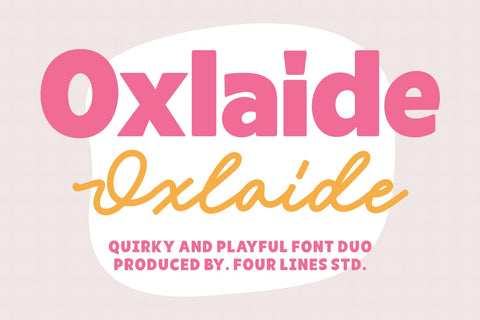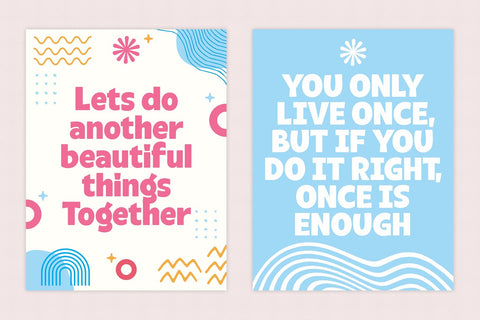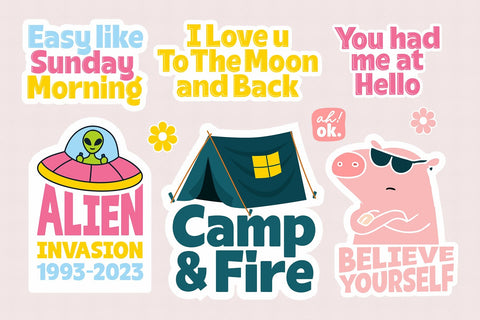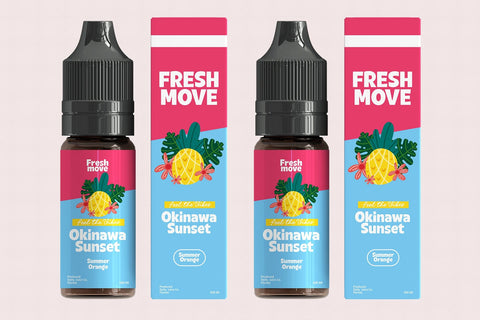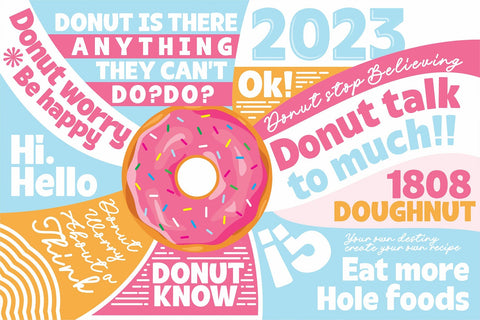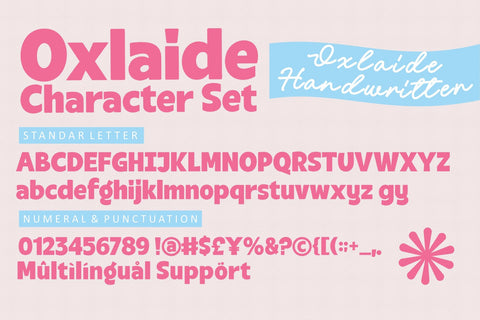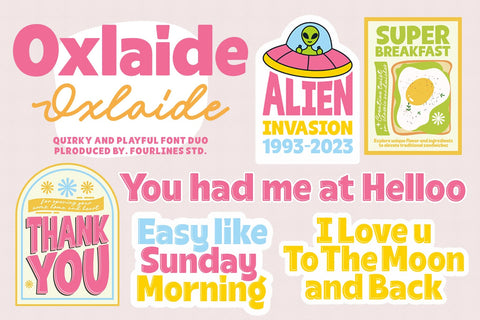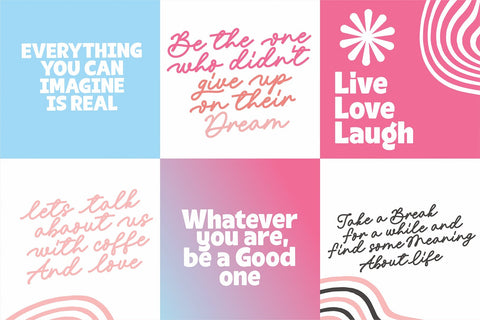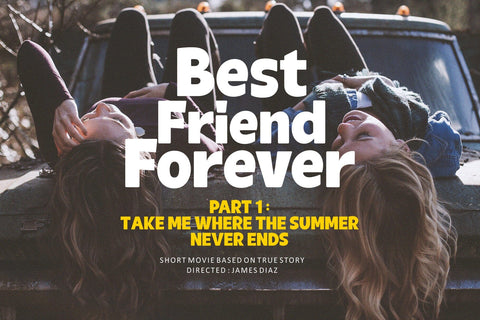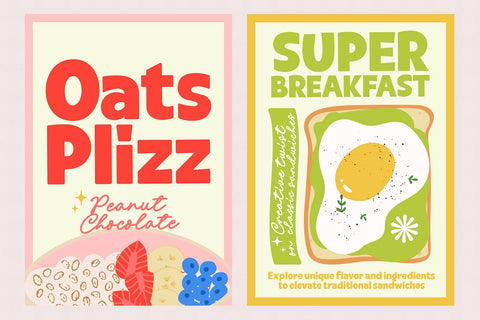
Oxlaide – The Bold and Playful Display Font
Introducing OXLAIDE: The Bold and Playful Display Font that's designed to capture attention and add a touch of whimsy to your projects. With its rounded corners and playful style, Oxlaide font is the perfect choice for a wide range of creative endeavors.
Its robust, thick lines ensure that your message stands out, whether you're designing posters, banners, logos, or any other project that needs to grab attention.
Oxlaide font also plays exceptionally well with others. Its bold and playful style complements handwritten fonts beautifully, creating a harmonious balance between structure and personality in your designs.